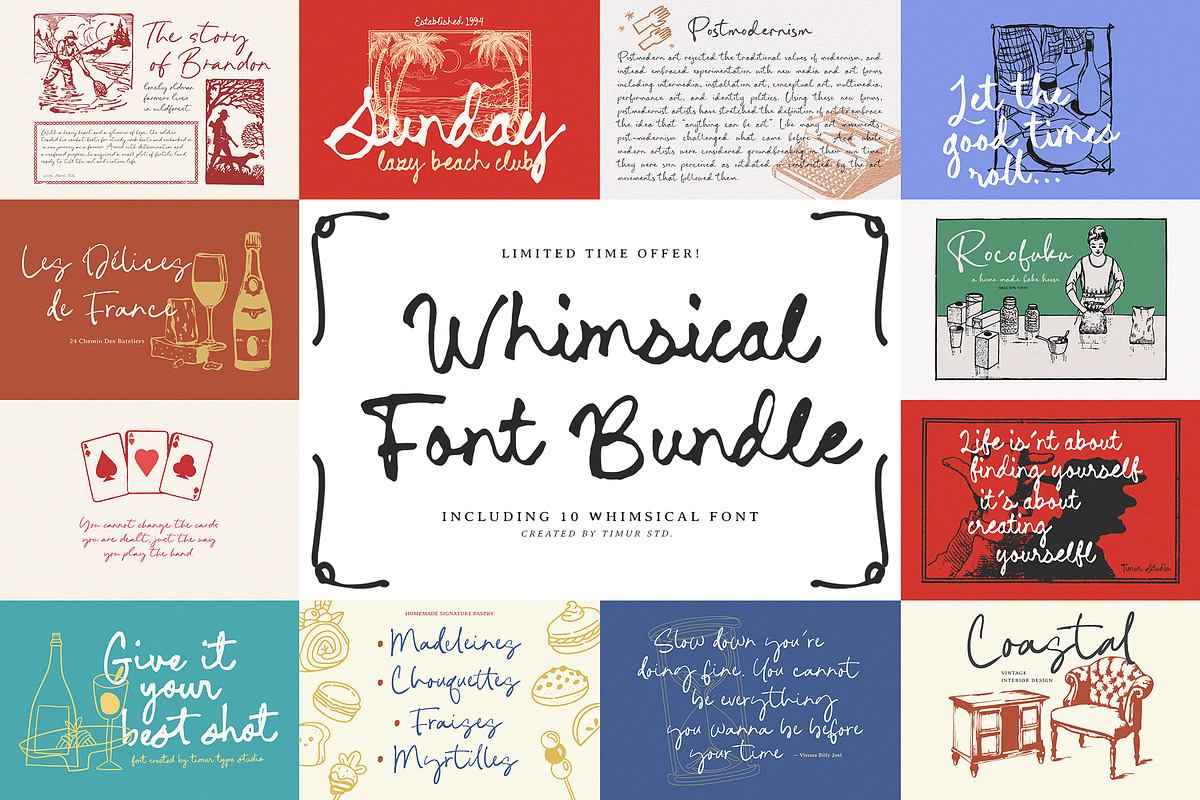
Whimsical Font Bundle - 10 Fonts Free Download is a delightful collection of 10 creative and playful fonts designed to add charm and personality to your projects. Whether you're designing for children’s products, event invitations, branding, social media graphics, or any whimsical-themed content, this bundle has the perfect font for you.
Each font in the bundle offers unique characteristics, from fun hand-lettered styles to quirky, decorative fonts, making it versatile for both casual and creative applications. The whimsical nature of these fonts adds an imaginative and joyful touch to any design.